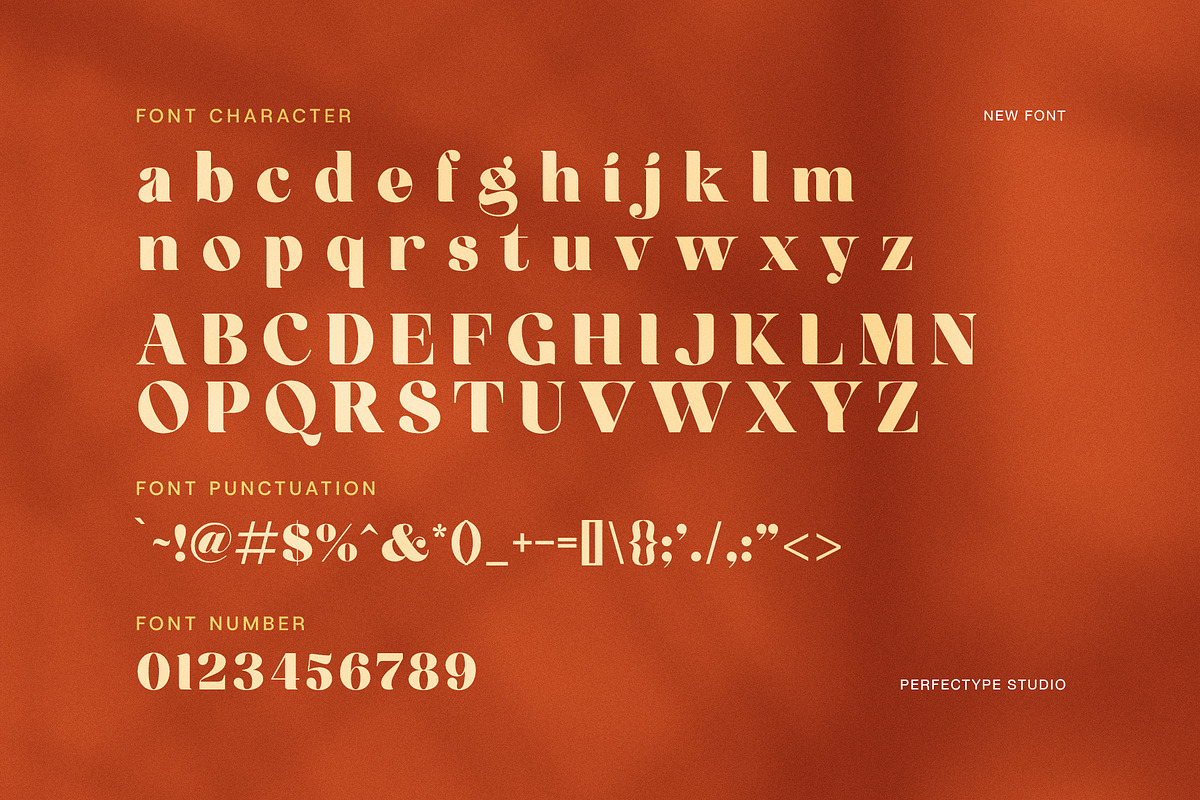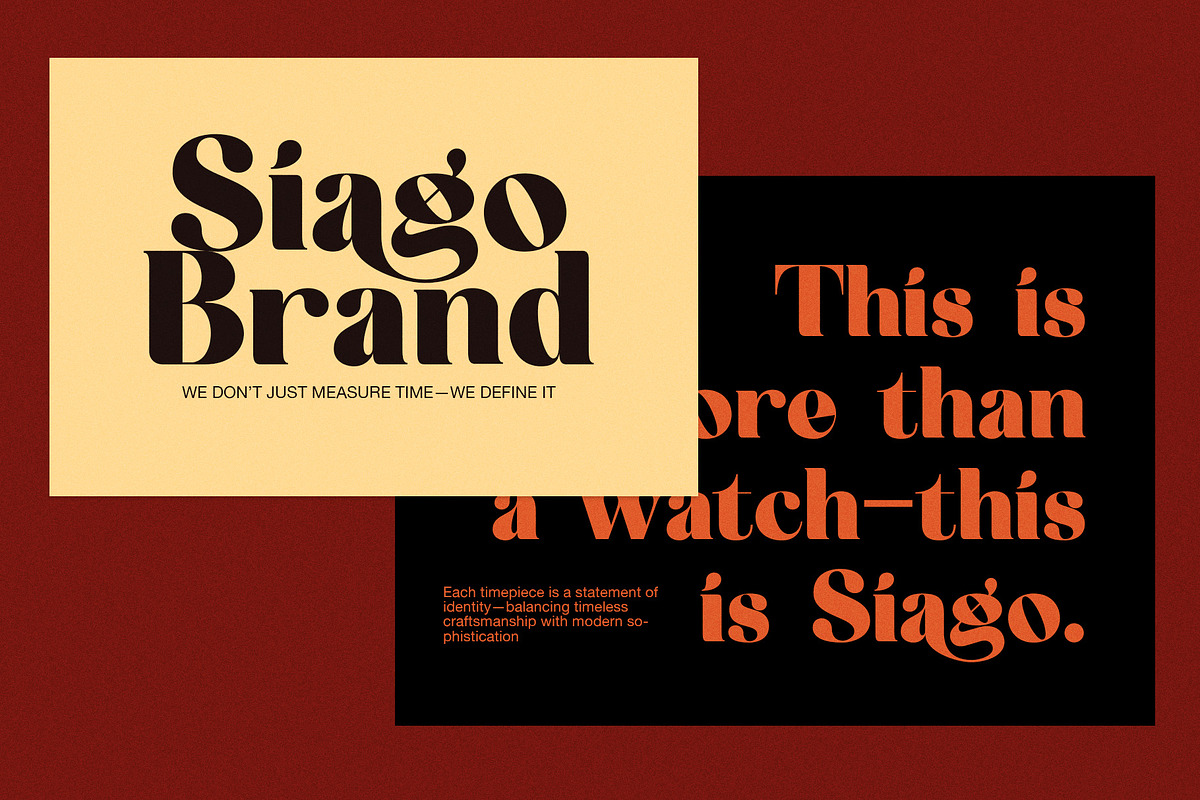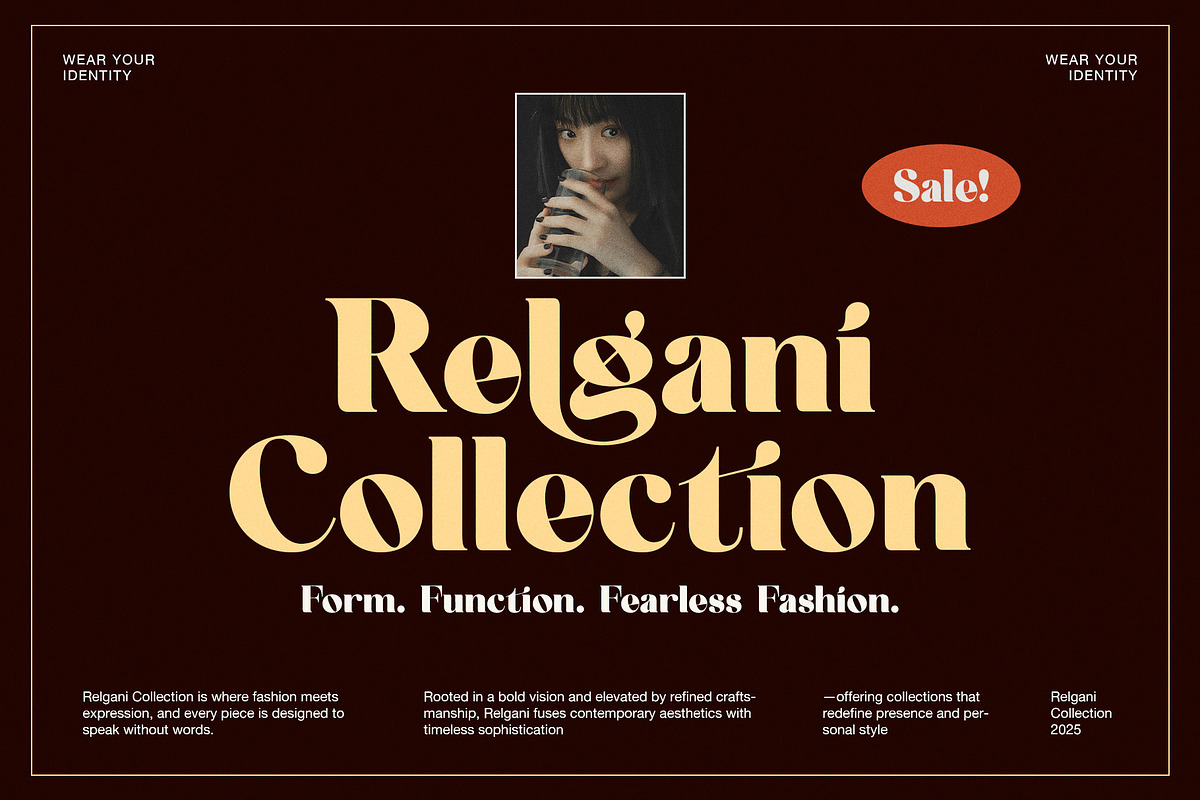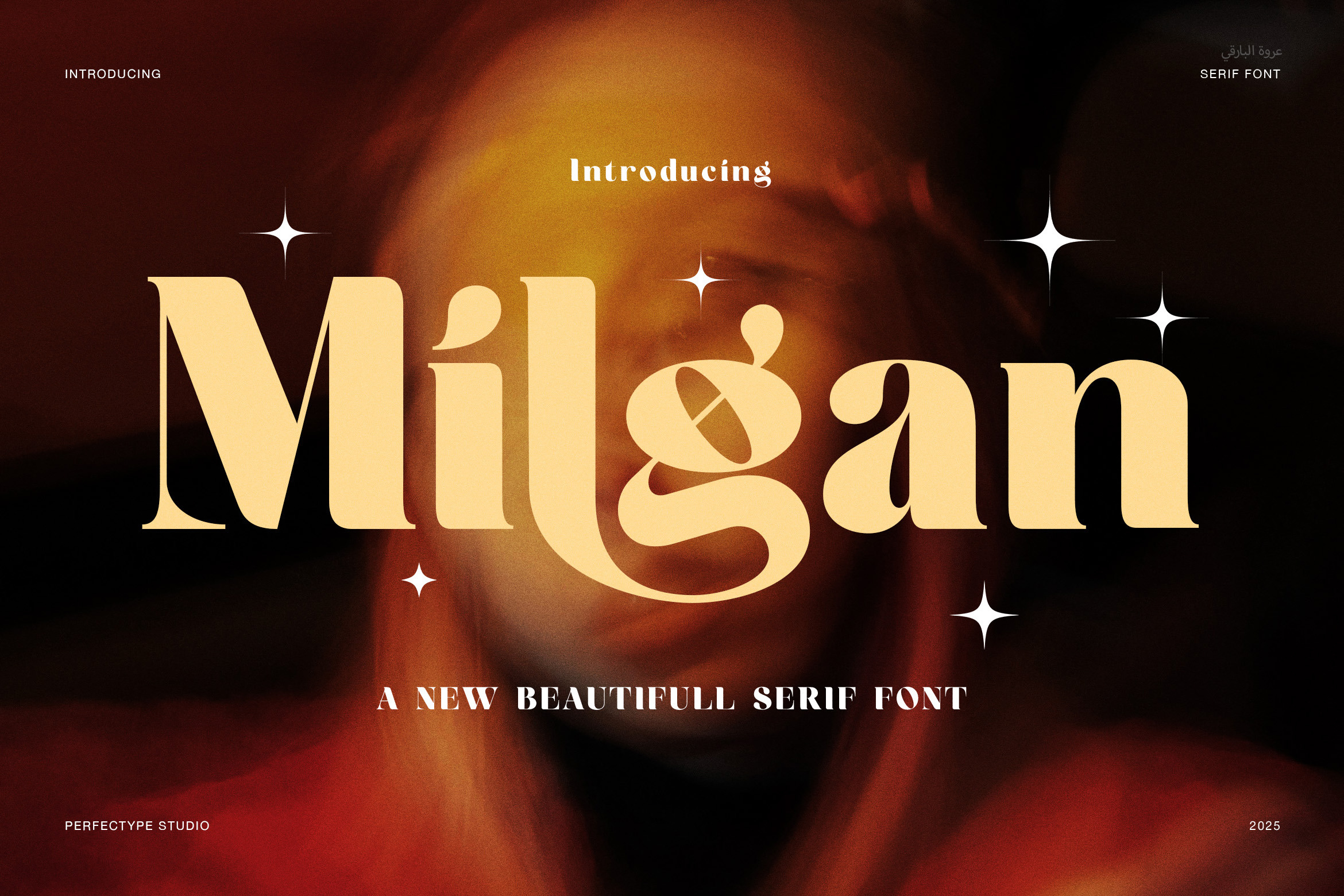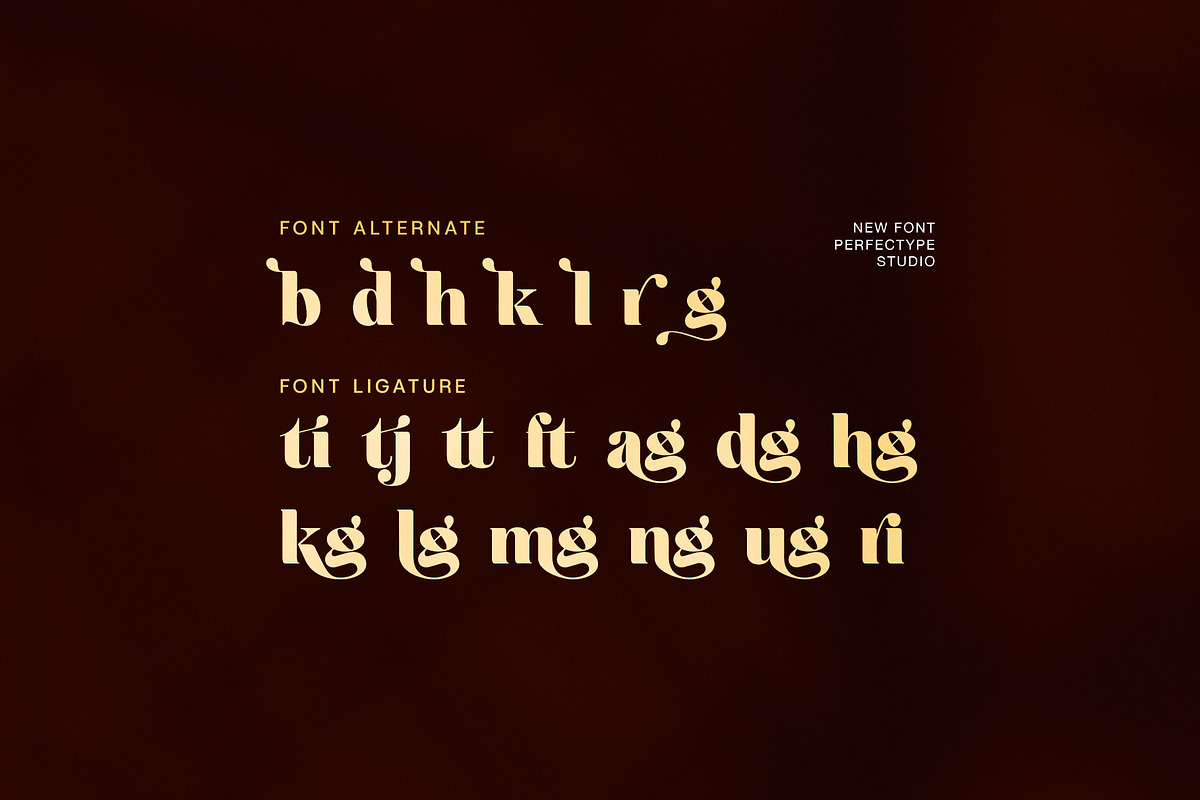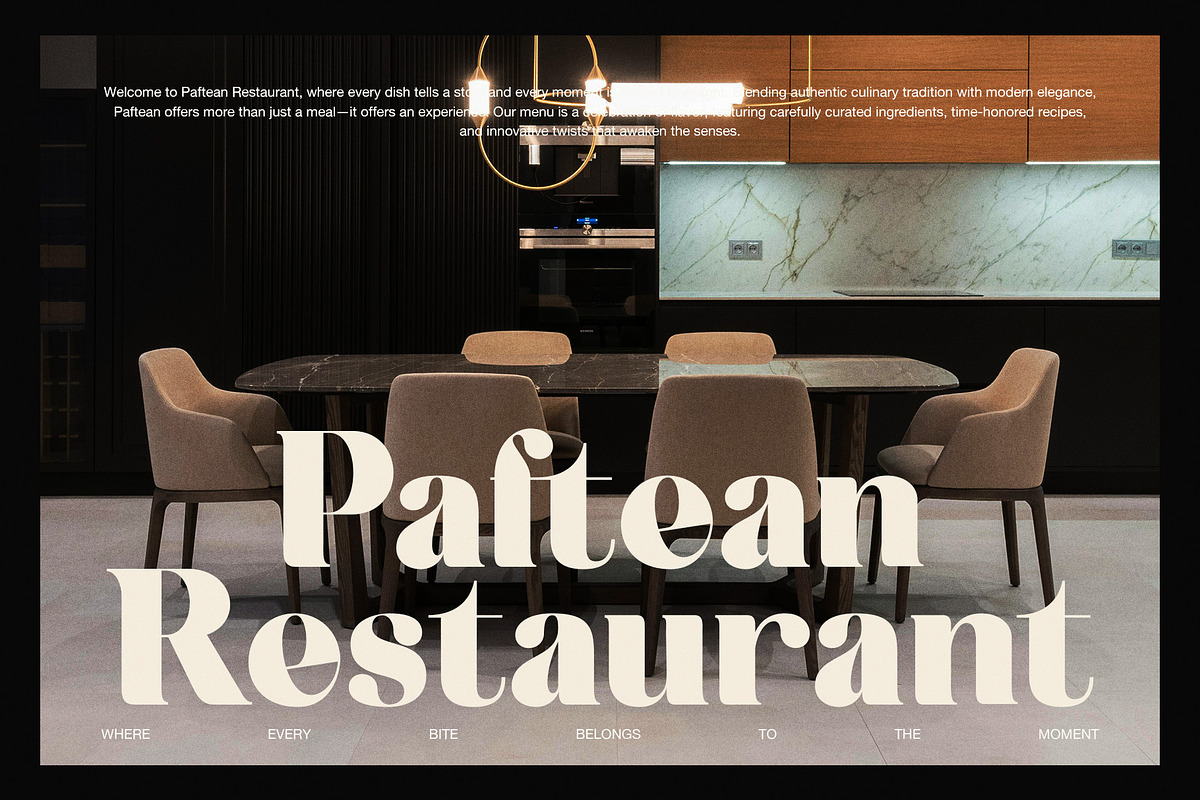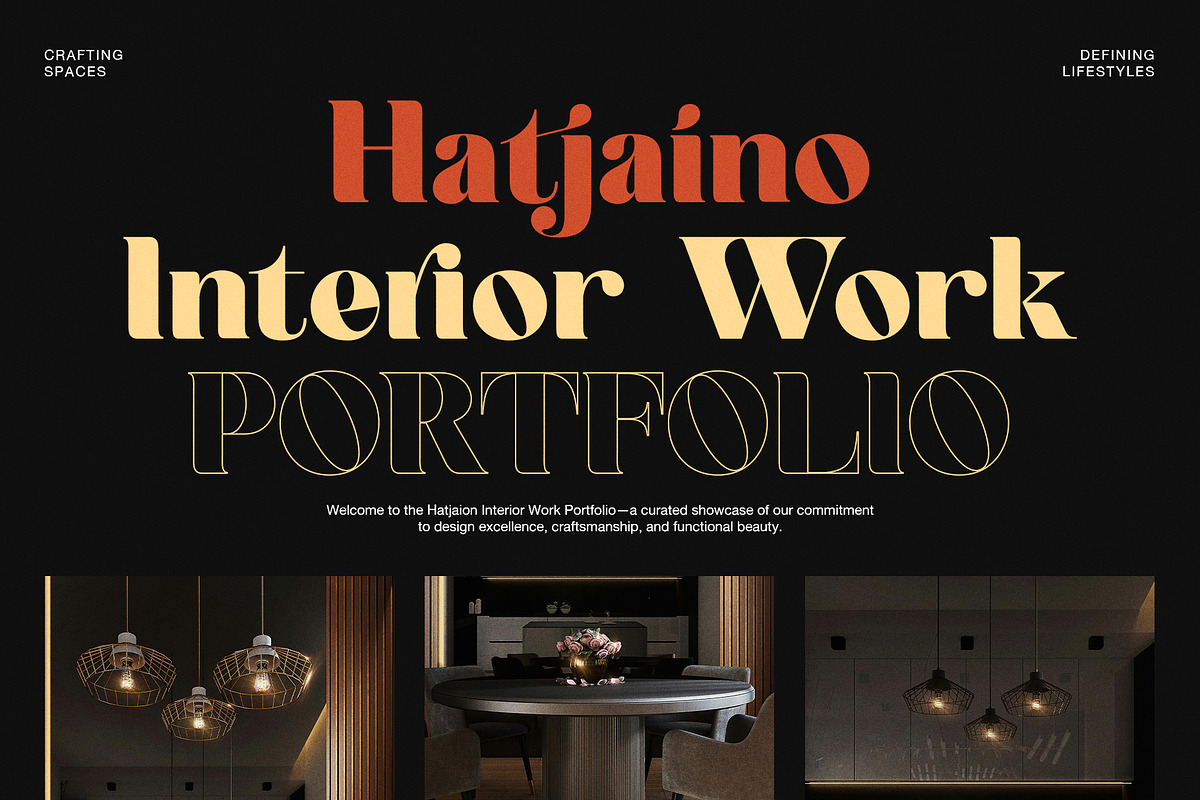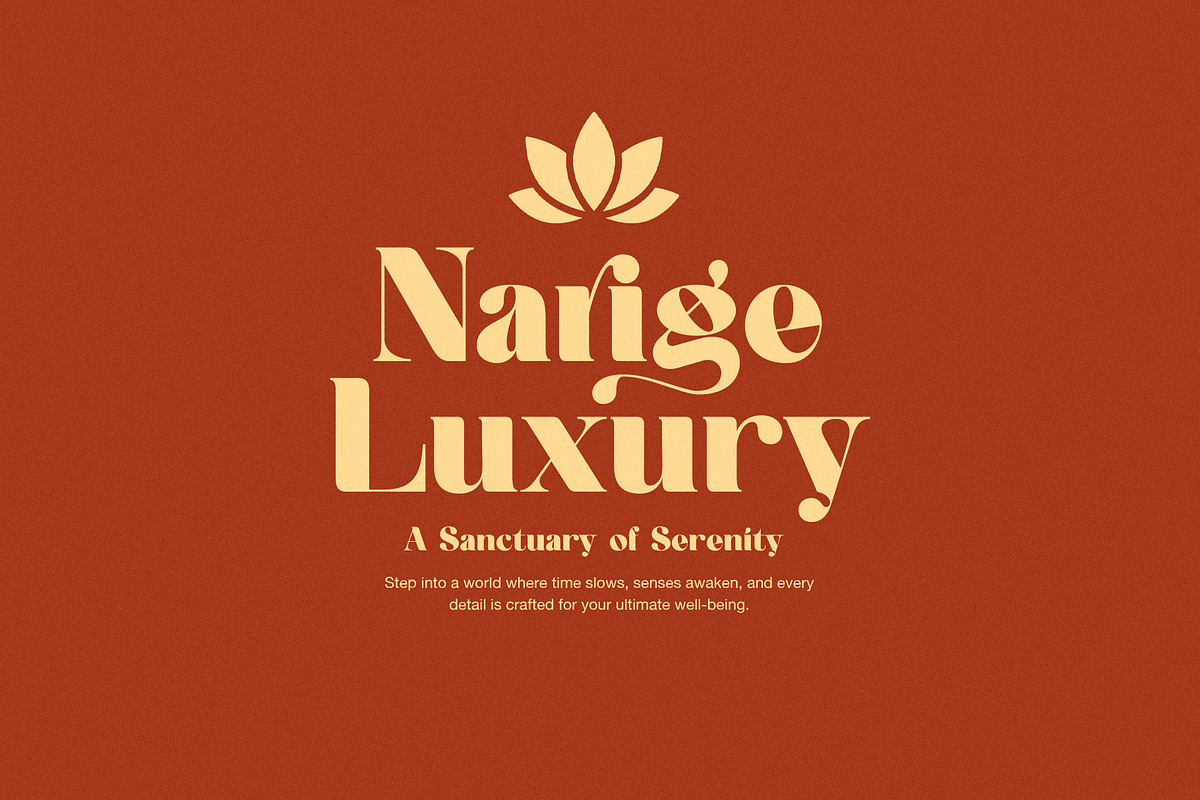
Milgan Elegant Serif Font
Milgan Elegant Serif is a refined serif font that blends timeless elegance with contemporary style. Its smooth curves and well-defined serifs create a polished look that works perfectly in many design contexts. As a result, this font is ideal for branding, editorial design, wedding invitations, and luxury packaging.
The shape of Milgan Elegant Serif shows carefully balanced letterforms with moderate contrast between thick and thin strokes. This ensures excellent readability without sacrificing style. Moreover, the slightly condensed letters help save space while maintaining a clean appearance. Therefore, it is well-suited for both headlines and body text.
Stylistically, Milgan offers a modern yet classic feel. It pairs well with sans serif fonts and script typefaces, enabling creative layering and diverse applications. In addition, the font exudes professionalism and sophistication, making it a popular choice for fashion brands, magazines, and upscale event materials.
Milgan Elegant Serif works seamlessly across print and digital platforms. Whether used in magazines, business cards, or websites, it maintains clarity and impact. Furthermore, multilingual support makes it accessible for global projects, increasing its usability.
Key features of Milgan Elegant Serif include:
Timeless serif design with modern touches
Balanced contrast for clear readability
Space-saving condensed letterforms
Perfect for branding, editorial, and weddings
Versatile for print and digital media
Supports multiple languages
By choosing Milgan Elegant Serif, you add elegance and clarity to your designs. It is more than just a font — it is a powerful tool to elevate your creative projects with style and professionalism.